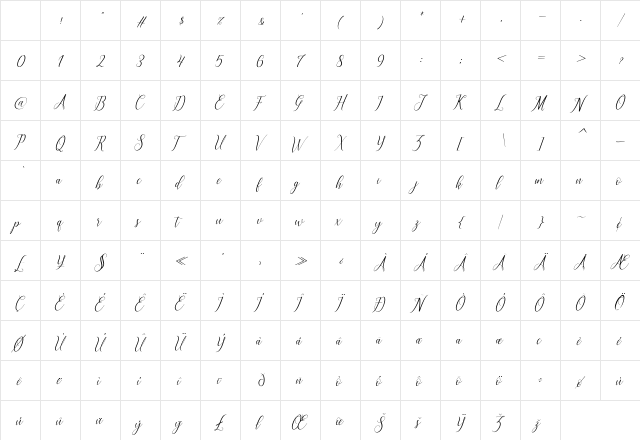
Complete brillyo Slant glyph index. Displaying only characters natively supported by brillyo Slant font.
brillyo is a composed and adaptable typeface that performs quietly and consistently across a wide range of design contexts.